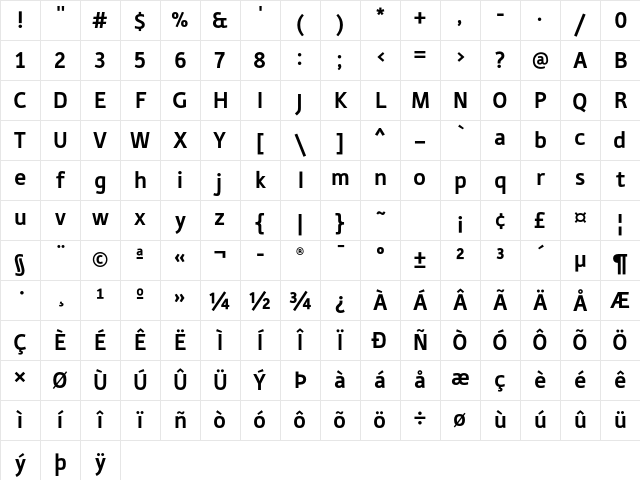
Tabula ITC Std Bold
Designer: Julien Janiszewski
Design Context for Tabula ITC Std
Tabula ITC Std is a composed and adaptable typeface that performs quietly and consistently across a wide range of design contexts. Its bold stroke weight gives it real presence on the page.